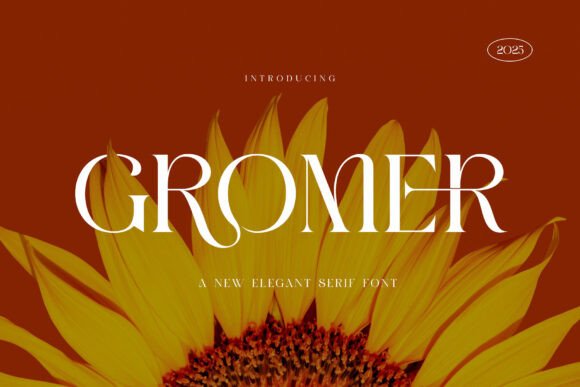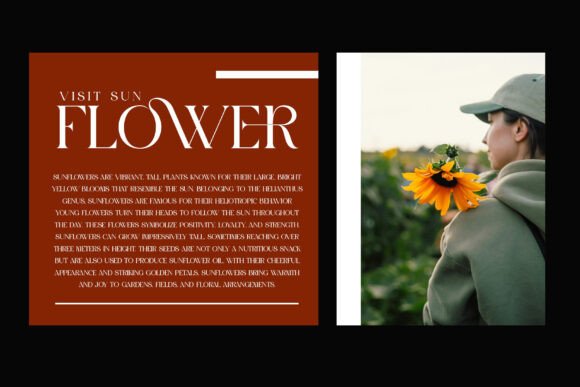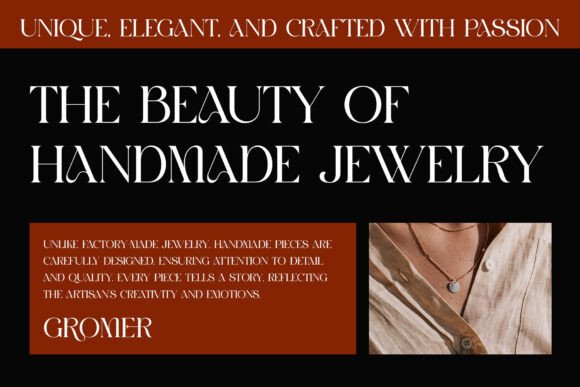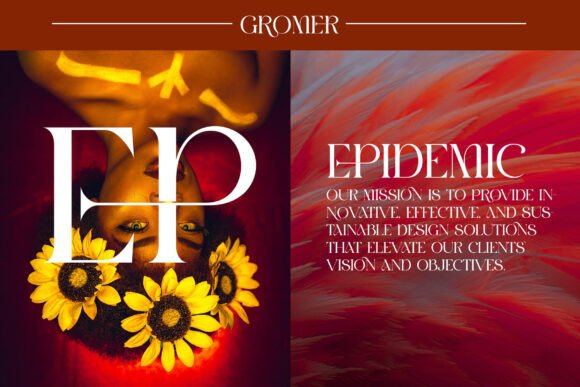
Gromer Font: Elegant Serif Typography for Modern Branding & Logo Design
About the Gromer Font
Add a touch of class to your work with the Gromer Font, a truly exceptional typeface. **Gromer** is an elegant ligature serif modern font that evokes the beauty of fresh blooms and timeless elegance. With its bold yet refined ligatures, Gromer stands out as a sophisticated and feminine typeface. Perfect for upscale designs, whether for florals, fashion, or high-end branding, Gromer pairs the charm of classic serif styles with a modern twist. Every letter feels intentional, with a soft and graceful presence that elevates any project it touches.
Bring a touch of refinement and natural grace to your work with Gromer. Let this font breathe elegance into your designs, and watch them flourish with style and character.
Gromer Font Example